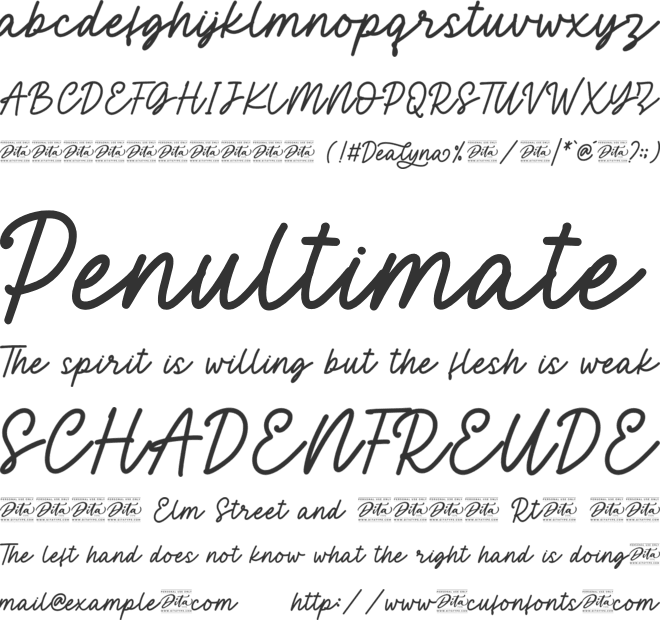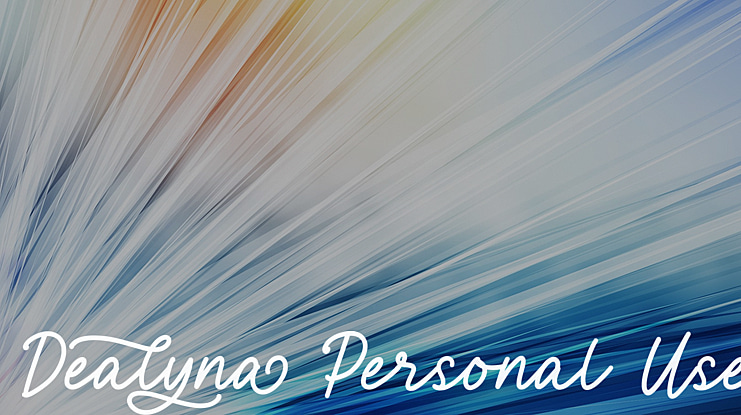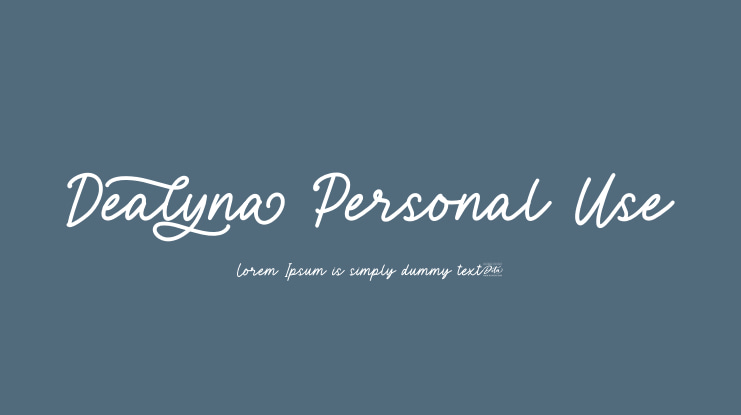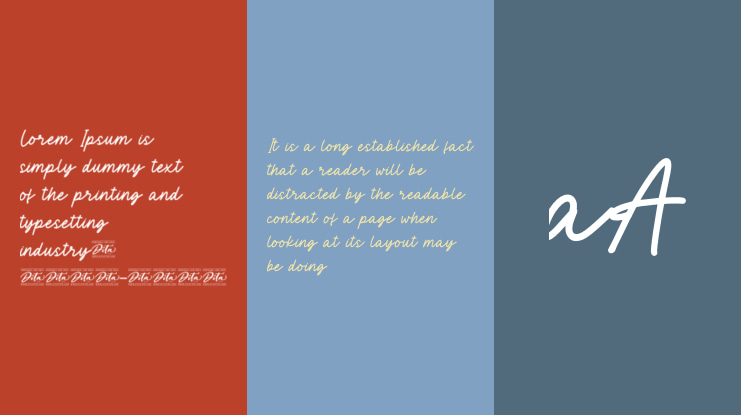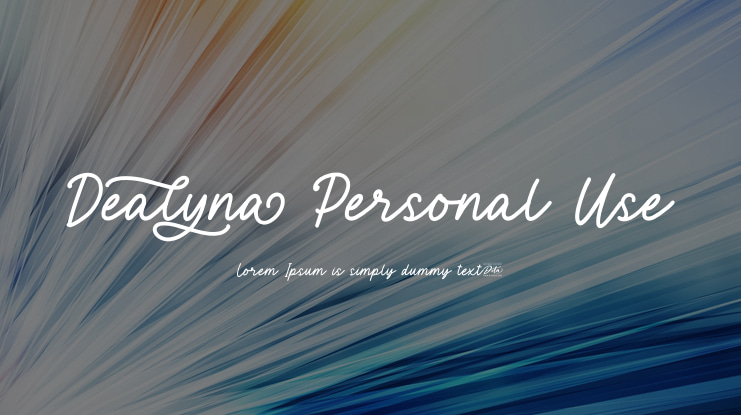
Dealyna is a modern monoline script font. With a classy and beautiful style, it brings a classy and chic typeface. Dealyna is best used for weddings, branding, logotype, and quotes.